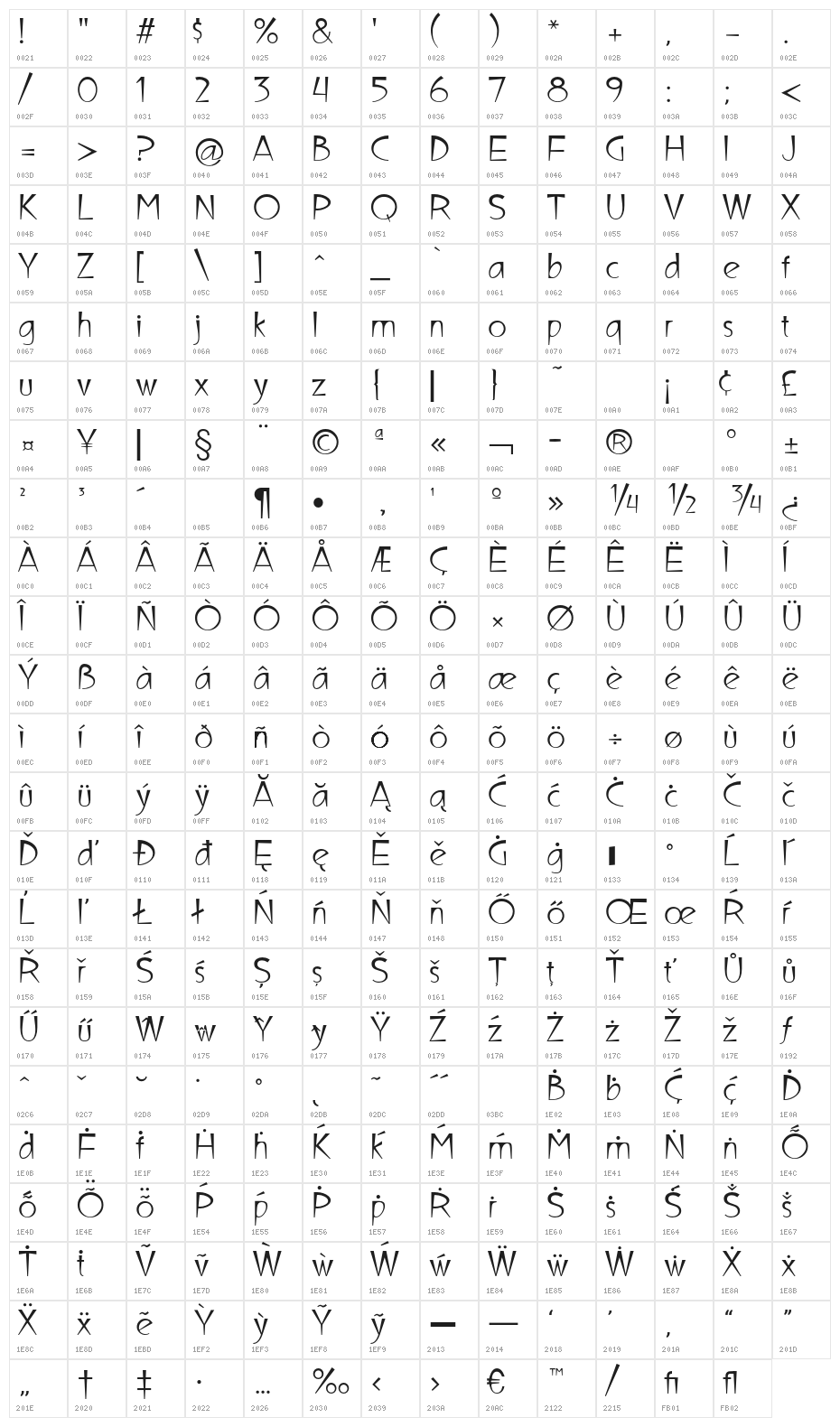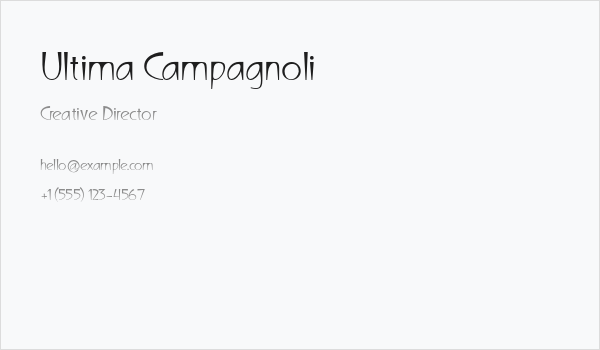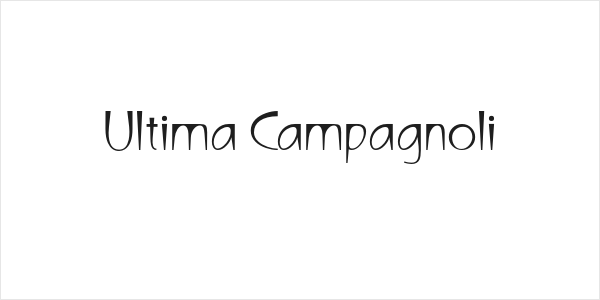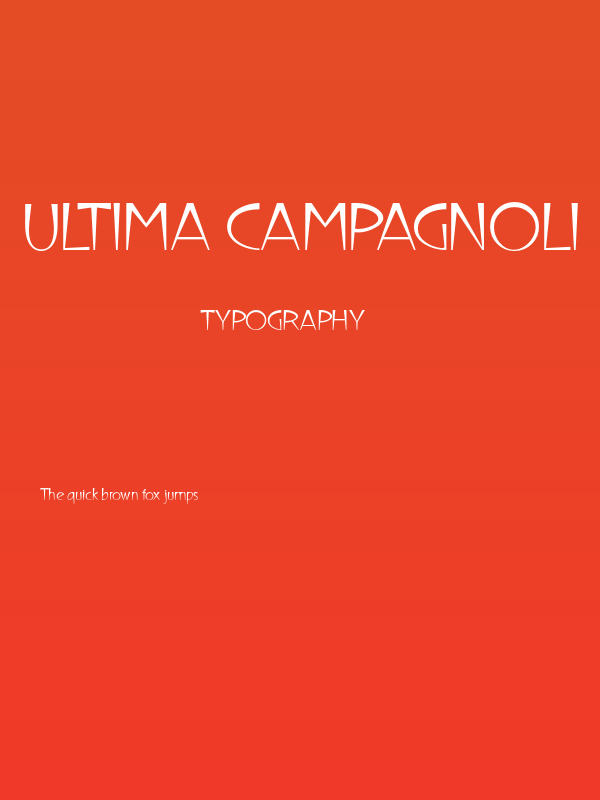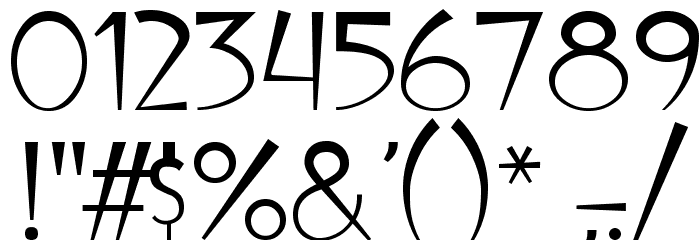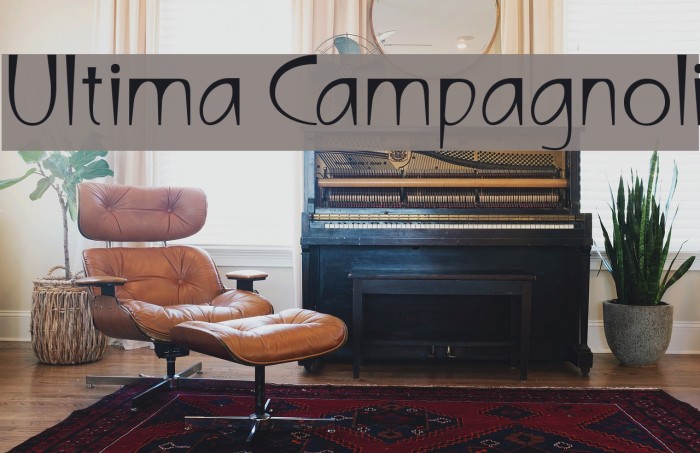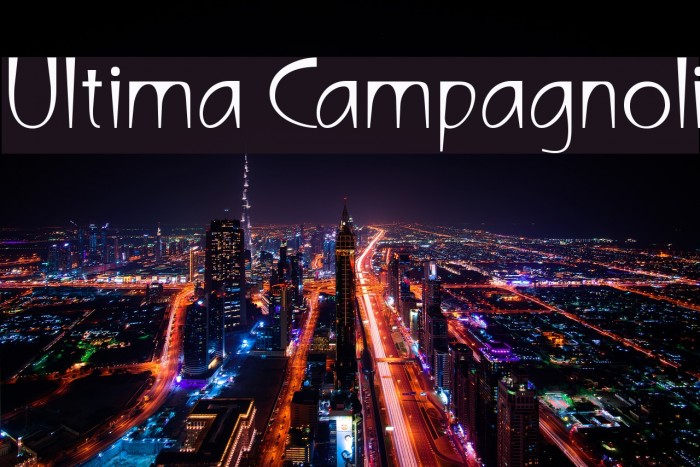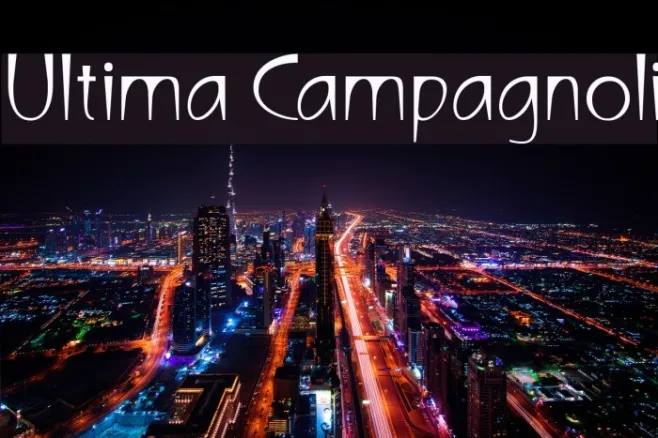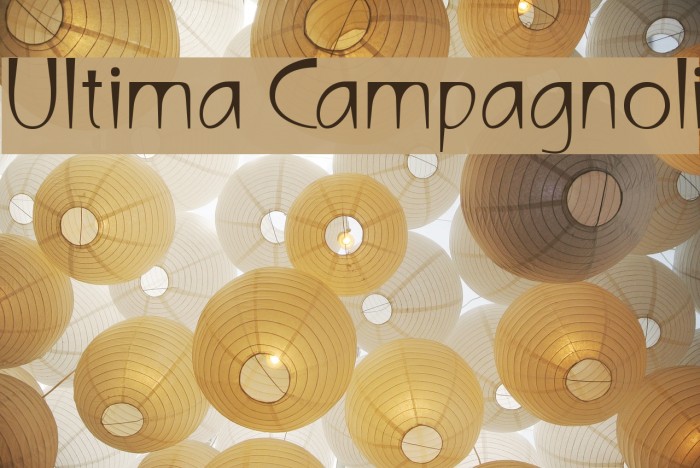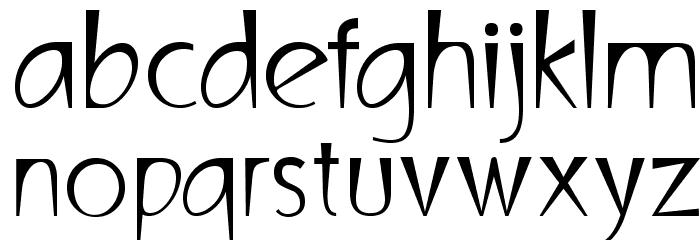
Ultima Campagnoli Font
Ultima Campagnoli Description
This font features a unique blend of geometric and organic shapes, creating a playful yet sophisticated appearance. The uppercase letters are characterized by sharp angles and clean lines, while the lowercase letters exhibit a more rounded and flowing form. The numerals are distinct and easily readable, maintaining the font's overall quirky aesthetic. Special characters are designed with the same attention to detail, ensuring consistency throughout. This font stands out with its artistic flair, making it suitable for creative and modern designs.
| Use Case | Logos, Headlines, Posters |
| Proposed Projects | Ideal for branding, packaging, posters, and creative editorial design. |